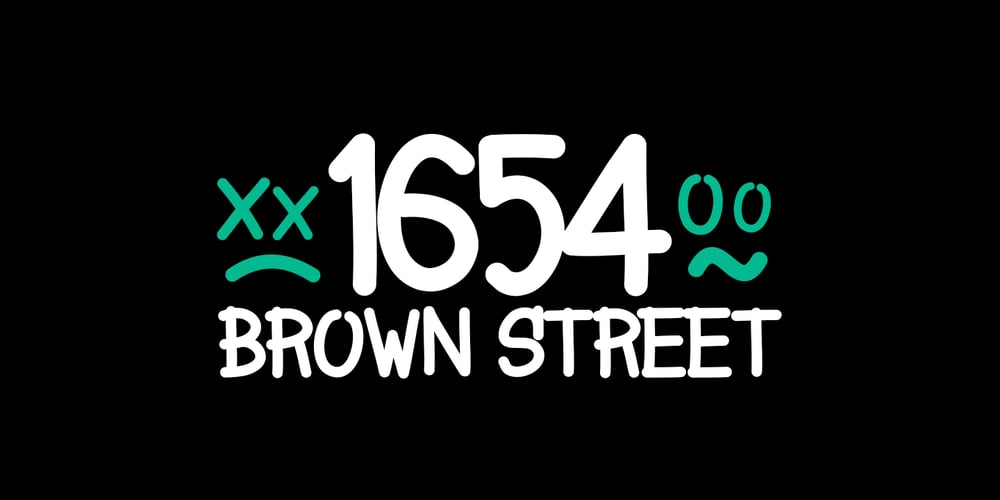
1654 Brown Street Font Family was designed by David Alexander Slaager and published by Fonts of Chaos. 1654 Brown Street contains 1 styles and family package options. 1654 Brown Street, from the street to our font library it’s only one step. This font is inspired by the street typography, the radius of the font is the same than the street marker.